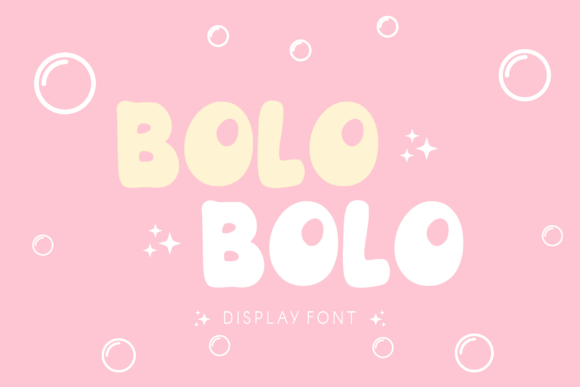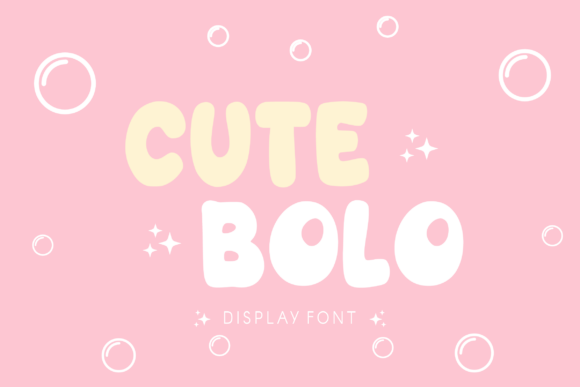
Introduction to Modern Bubble Font
Have you ever stared at a blank canvas, overwhelmed by the endless possibilities of a creative project? For designers, this moment is all too familiar. The spark of inspiration can strike at any moment, and when it does, the world of design becomes a vibrant playground. It’s in these moments that we search for the perfect tools to bring our visions to life.
| 👤 Author | anamalmusyaffaCreative |
That’s where the Modern Bubble Font comes in – a delightful addition to any designer’s toolkit. With its cute, easy-to-recognize characters, this high-quality font is perfect for sublimation designs, animations, comic titles, and more. Whether you’re working on a freelance project or a personal creative endeavor, the Modern Bubble Font is a valuable resource that can elevate your designs and leave a lasting impression.
Key Features of Modern Bubble Font
- Unique, playful design ideal for creative projects requiring a fun and whimsical touch.
- Perfect for designers seeking a modern, bubble font to add a creative twist to their projects.
Honest Review: Modern Bubble Font
As a designer, I’m always on the lookout for high-quality design resources that can elevate my creative projects. Recently, I stumbled upon the Modern Bubble Font, and I have to say, it’s a game-changer.
Here are some things that work well with this font:
- Unique and playful style that adds a touch of whimsy to any design ✨
- Only a limited number of font weights and styles are available ⚠️
- Not ideal for use in complex or large-scale designs ⚠️
Overall, I’m really impressed with the Modern Bubble Font. It’s a great addition to any designer’s toolkit, and I can see it being a hit for creative projects like branding, packaging, and more. If you’re looking for a fun and unique font to add some personality to your designs, give the Modern Bubble Font a try!
How to Use Modern Bubble Font
The Modern Bubble Font is a high-quality design resource perfect for creative projects that require a unique and eye-catching touch. With a transparent background, this font is versatile and can be used in a variety of settings.
The Modern Bubble Font can be used in various design applications, including:
– Use the Modern Bubble Font to create stunning graphics and designs for social media, presentations, and more.
– Apply the Modern Bubble Font to your designs to add a touch of elegance and sophistication.
– Use the Modern Bubble Font to create engaging presentations and documents that stand out from the crowd.
To get the most out of the Modern Bubble Font, experiment with different font sizes, colors, and combinations to create unique and visually appealing designs.
The Modern Bubble Font is ideal for: